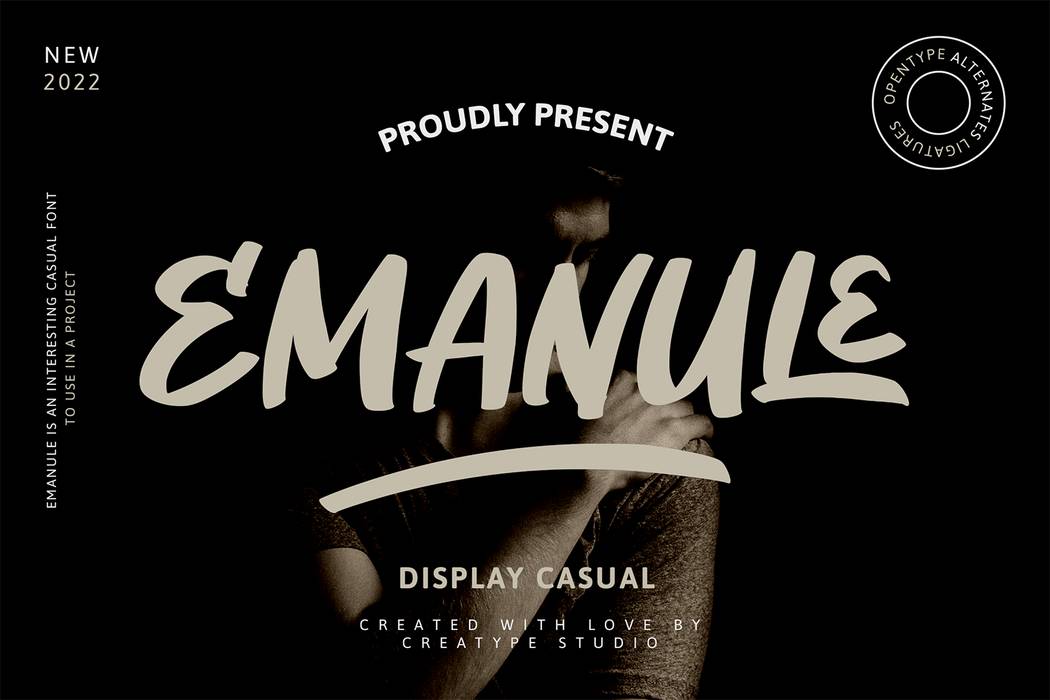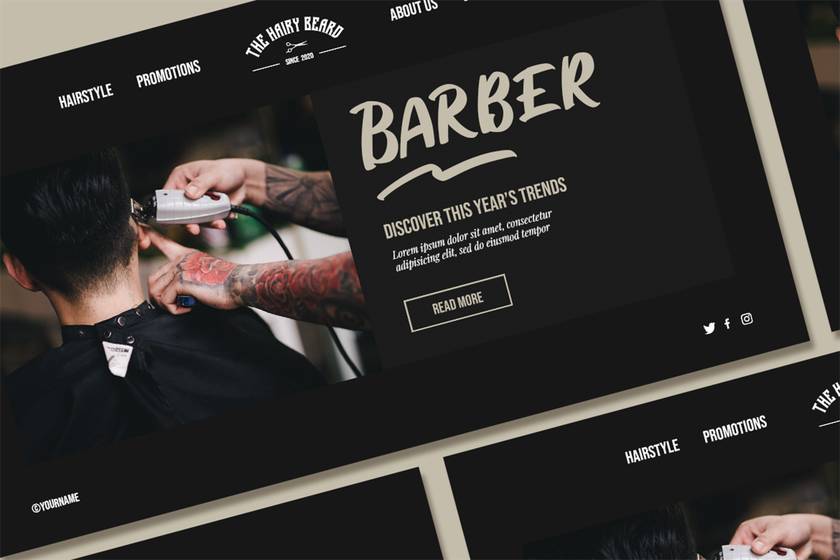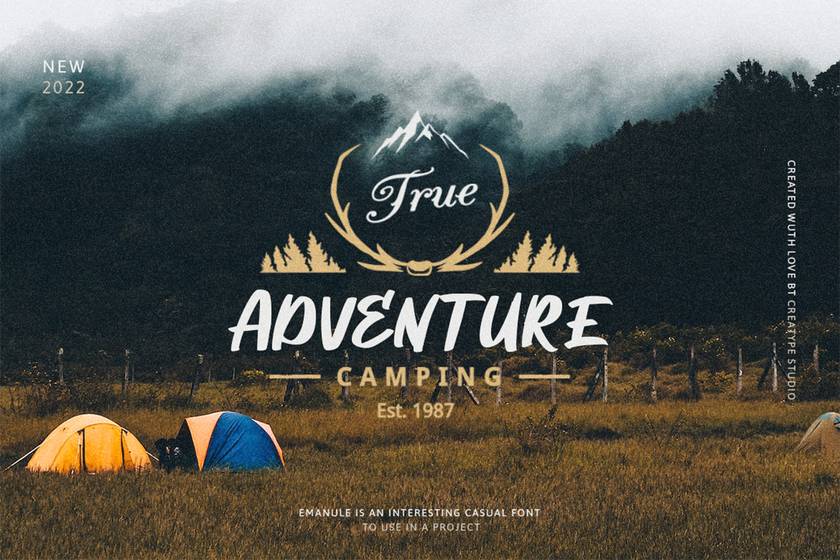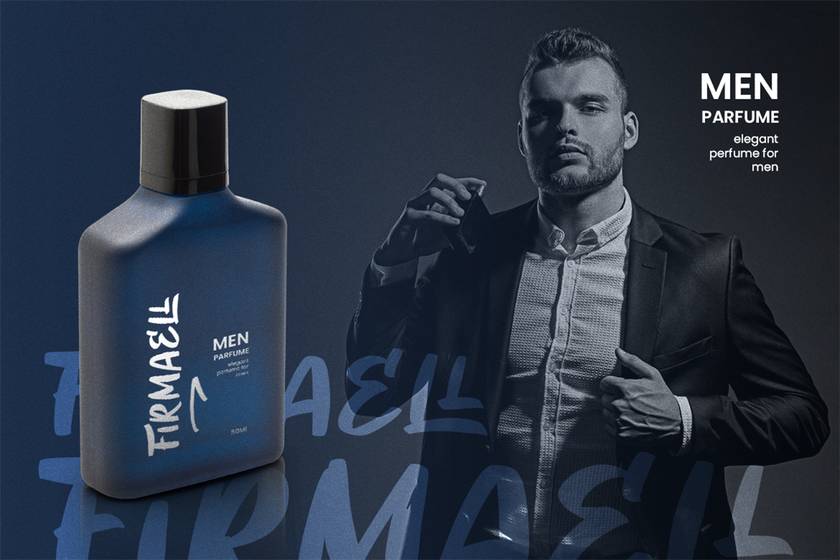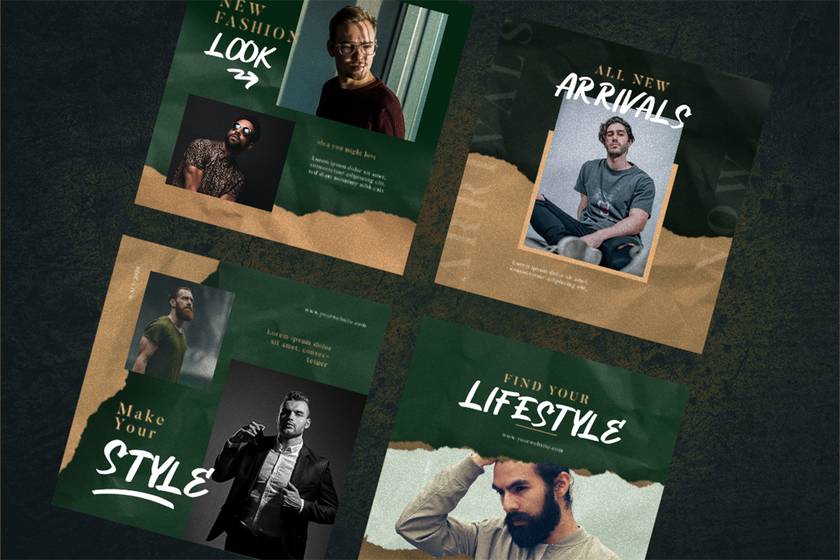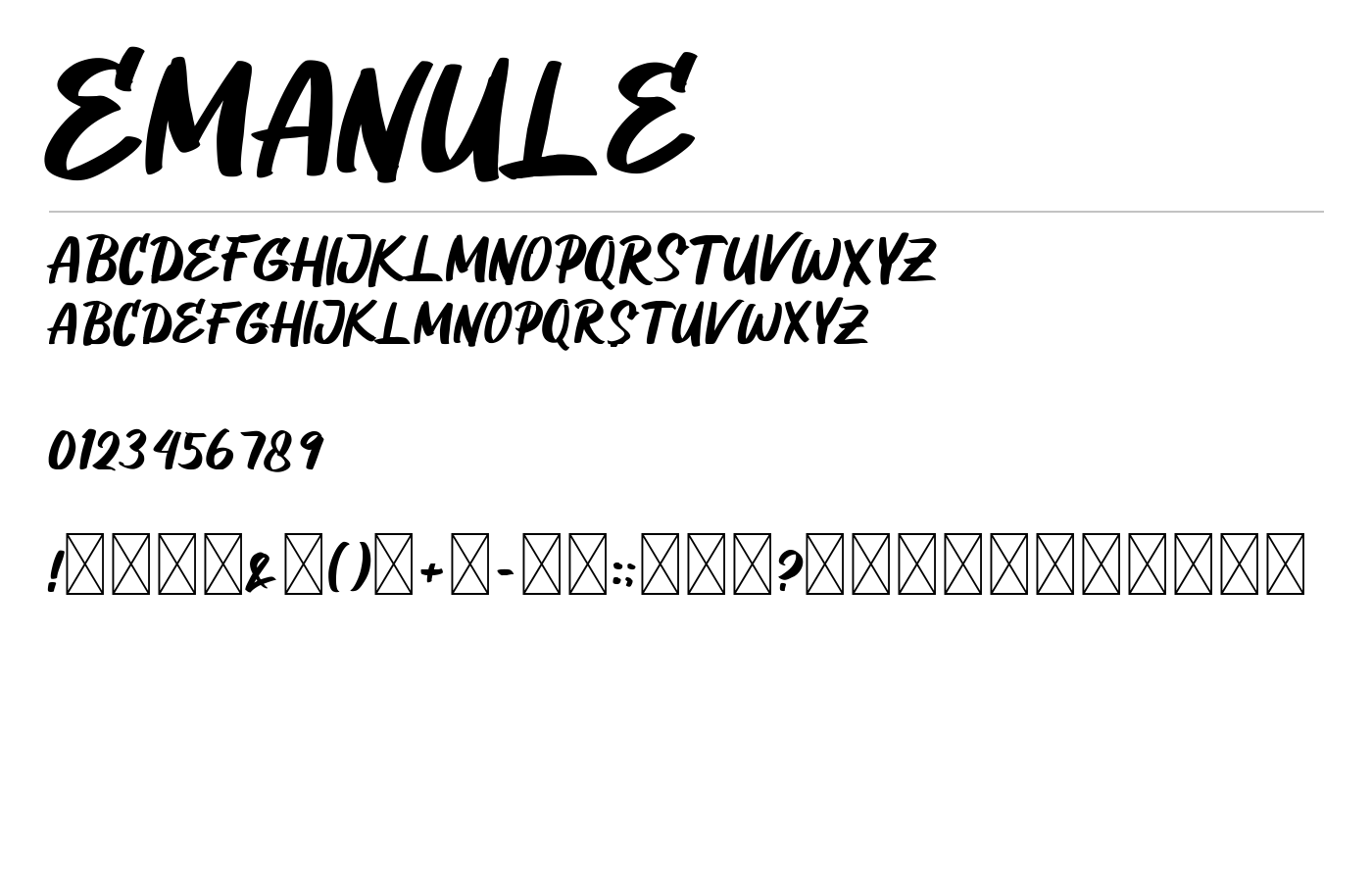
Emanule is a bold, brush-script font with smooth, flowing strokes that convey a lively and casual feel. Its strong presence and informal style make it well-suited for creative projects, branding, and headlines where a personal, energetic touch is desired. This font works best in designs that aim to be friendly, approachable, and expressive.
Emanule Font
About Emanule Font